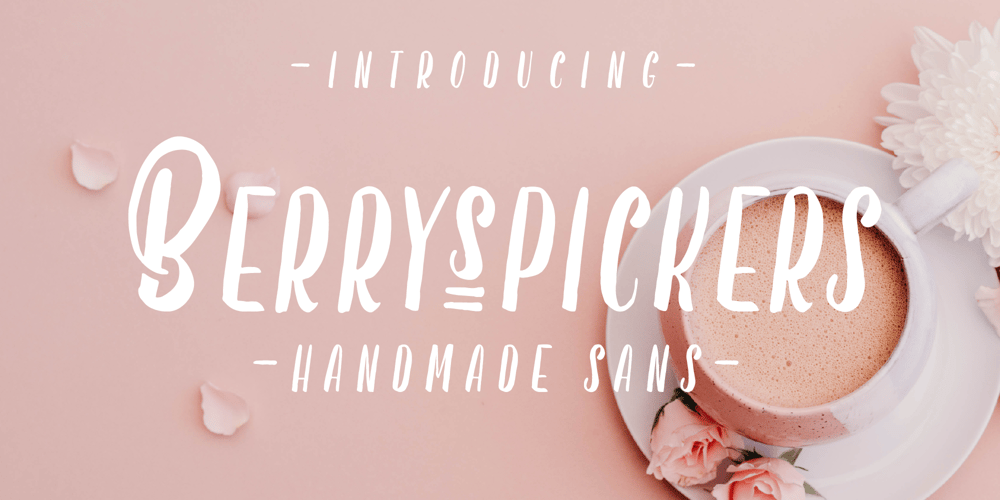
Berryspickers Font Family was designed by Adam Fathoni Haris, Angga Kristiandri and published by Abbasy Studio. Berryspickers contains 1 styles and family package options. Berryspickers is allcaps font with handwritten style very suitable when combined with watercolor and it can makes your work more stylish. this font features with Stylistic Alternates that allows you to mix and match pairs of letters to fit your design. Perfect for branding projects, Logo design, Clothing Branding, product packaging, magazine headers, etc.